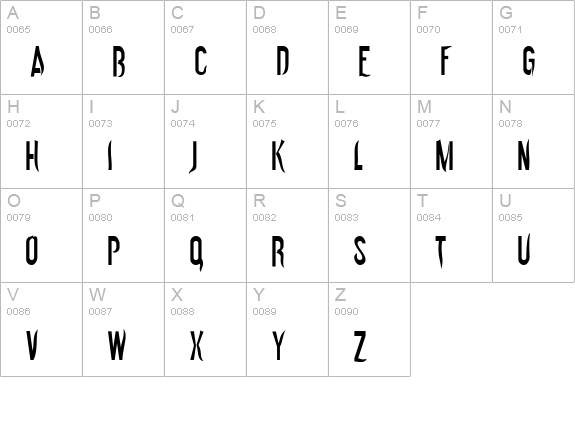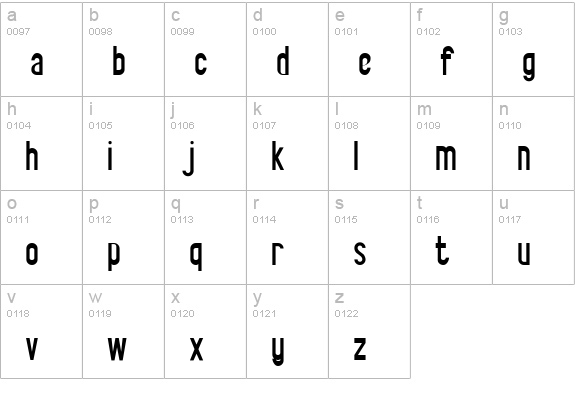
Vibrolator Font Details
Vibrolator font is a stunning display typeface that exudes energy and vibrancy. Its bold and playful letterforms are reminiscent of a retro design aesthetic, making it perfect for projects that require a touch of nostalgia and a dash of excitement. With its dynamic curves and unique letter shapes, Vibrolator font captures attention and adds a lively personality to any design. Whether it's used for headlines, logos, posters, or branding materials, this font is sure to make a statement and leave a lasting impression. But the best part? Vibrolator font is available for free download at FontsMarket.com. Yes, you read that right! This incredible font can be yours without spending a single dime. FontsMarket.com offers a wide array of free fonts, and Vibrolator font is just one of the many treasures waiting to be discovered. So why wait? Embrace the energy and excitement of Vibrolator font in your designs today. Download it for free at FontsMarket.com and let your creativity soar.